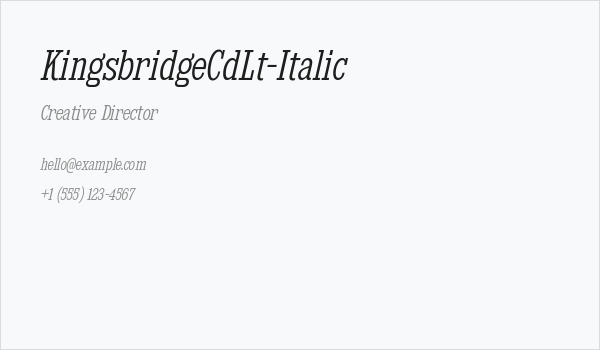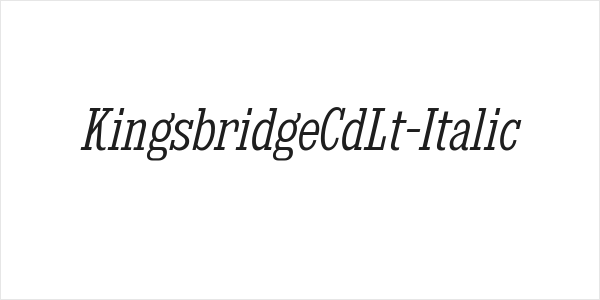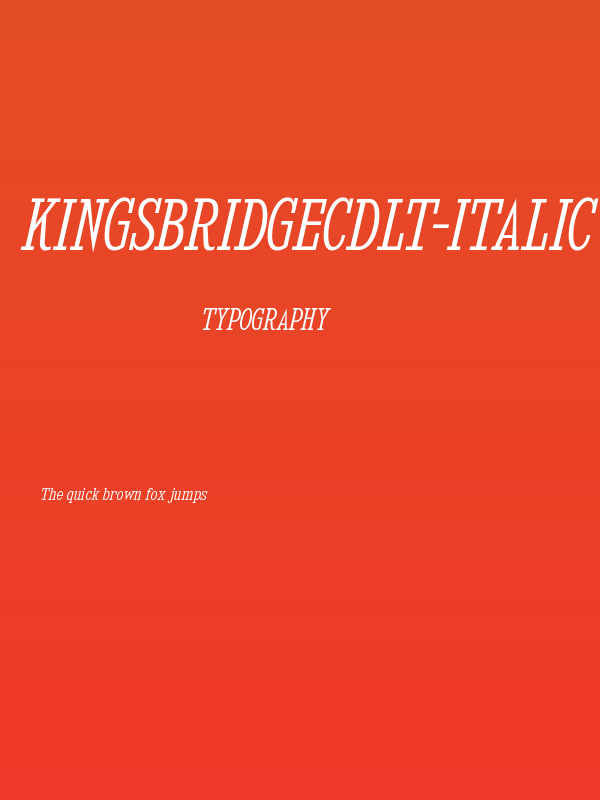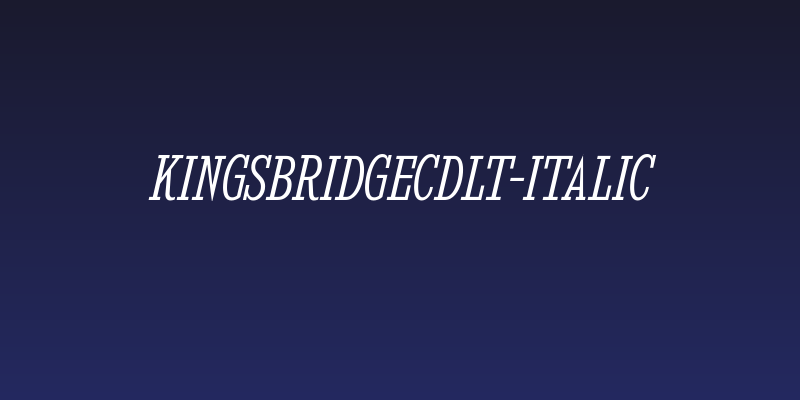
KingsbridgeCdLt-Italic Font
KingsbridgeCdLt-Italic Description
This font features a classic and elegant italic style with a slight slant to the right, giving it a sophisticated and dynamic appearance. The characters are well-proportioned with a moderate contrast between thick and thin strokes, enhancing readability while maintaining a stylish look. The serifs are subtle yet distinct, adding a touch of traditional charm. The overall design is clean and refined, making it suitable for a variety of formal and professional applications. The spacing between characters is balanced, ensuring clarity and legibility across different sizes.
Overall StyleClassic
Proposed ProjectsIdeal for use in editorial design, formal invitations, branding for luxury products, and elegant website headers.